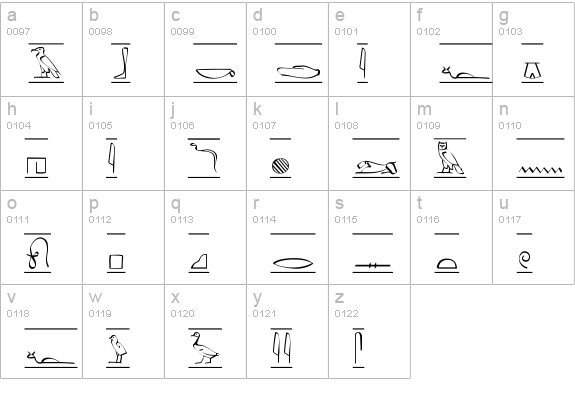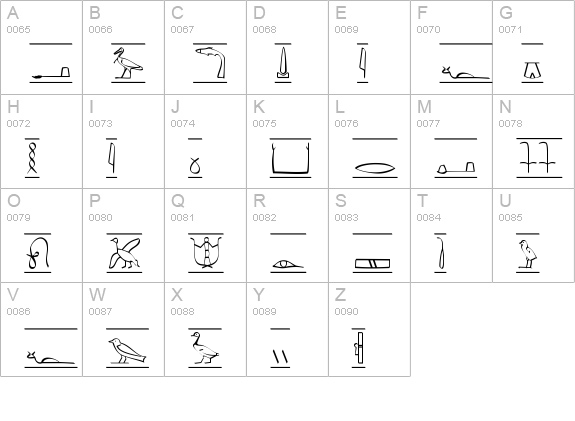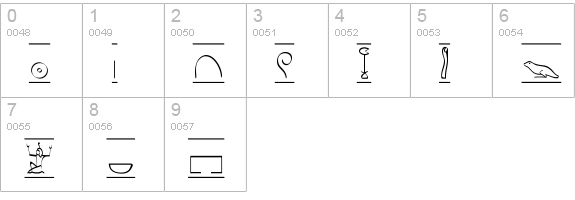
HieroglyphicCartouche Font Details
Introducing HieroglyphicCartouche font, a captivating and intricate typeface inspired by ancient Egyptian hieroglyphics. This unique font features beautifully crafted symbols and characters that evoke the mysterious and majestic essence of Egyptian civilization. The HieroglyphicCartouche font is perfect for adding a touch of exotic flair to your designs, whether you're working on historical projects, themed events, or simply looking to stand out with a distinctive look. Best of all, HieroglyphicCartouche font is completely free to download at FontsMarket.com. Embrace the allure of ancient Egypt and bring a touch of mystique to your creations with this stunning font. Unlock the secrets of the past and unleash your creativity with HieroglyphicCartouche font today!